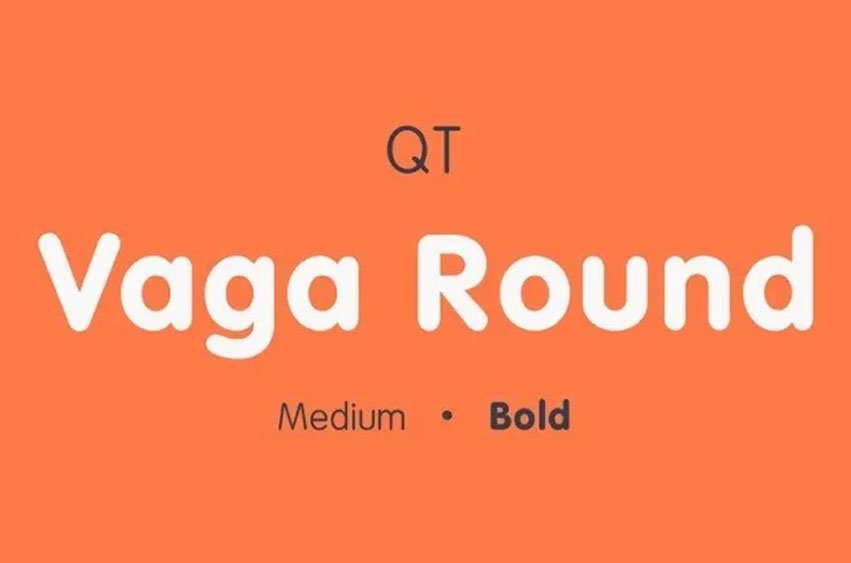
Vaga Round Font
Vaga Round Font is a modern, super-clean sans font. It has a stylish and professional design which was designed to resemble the appearance of major IT corporations. The distinctive design that is dedicated to the principles of accessibility in its purist form underlines the company’s credo of functionality and minimalism with the ethos “Less is more”. Just like any other highly professional font.